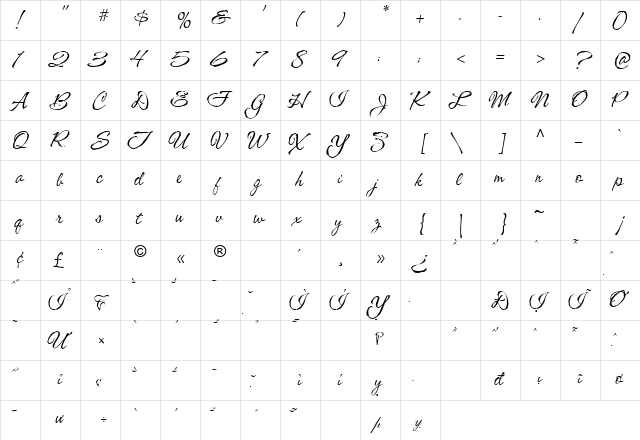
Vni 30 Shishoni Brush Regular
Design Context for Vni 30 Shishoni Brush Typeface
Vni 30 Shishoni Brush flows with the natural rhythm of handwritten lettering, making it ideal for designs that call for warmth and personal expression.
Font Pairing: Combine Vni 30 Shishoni Brush with a simple geometric sans for maximum contrast — the tension between flowing curves and clean structure is a classic typographic pairing.
Pro Tip: Pair Vni 30 Shishoni Brush with a clean sans-serif for supporting text. The contrast between fluid script and geometric structure creates an elegant typographic hierarchy.